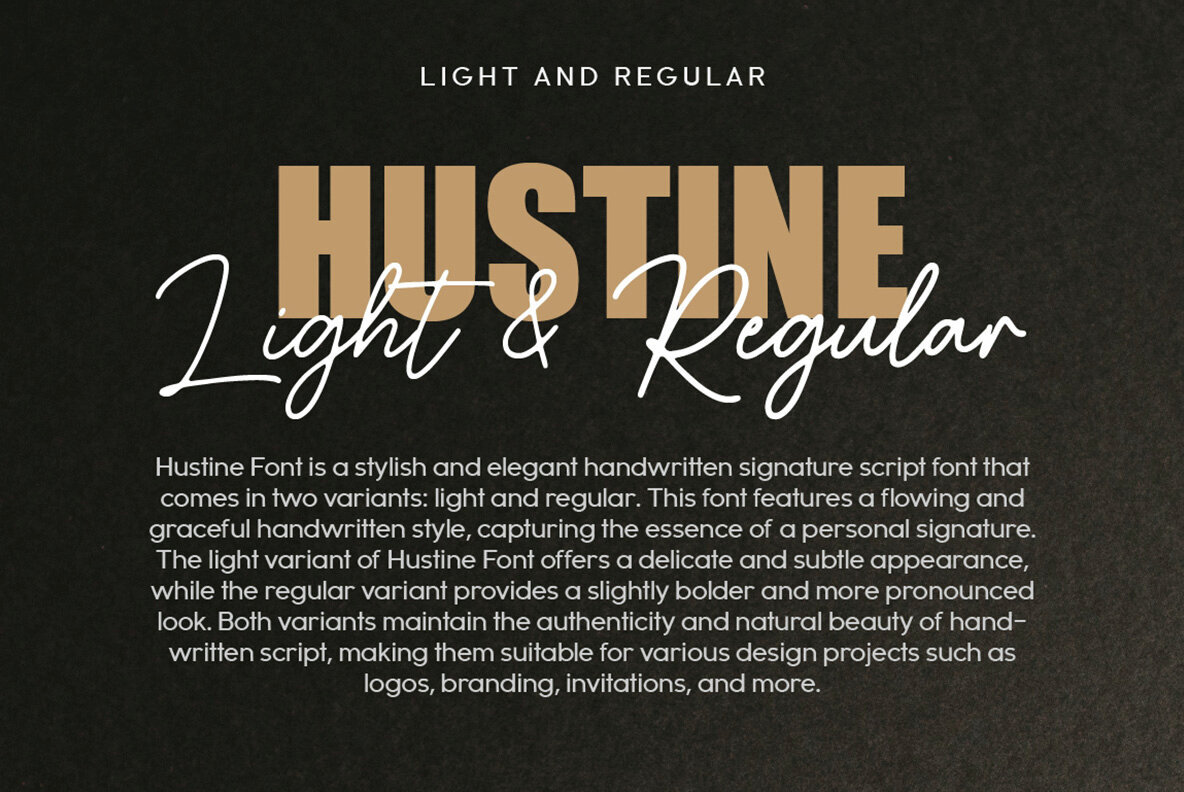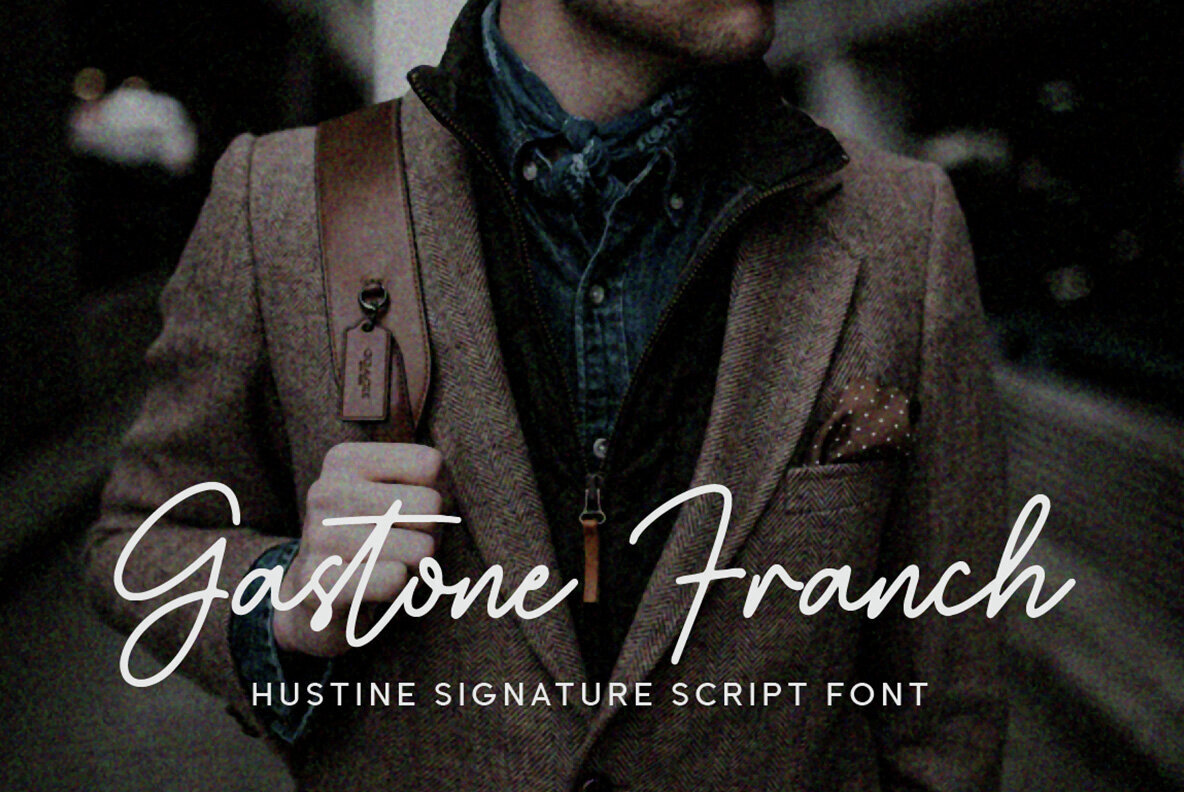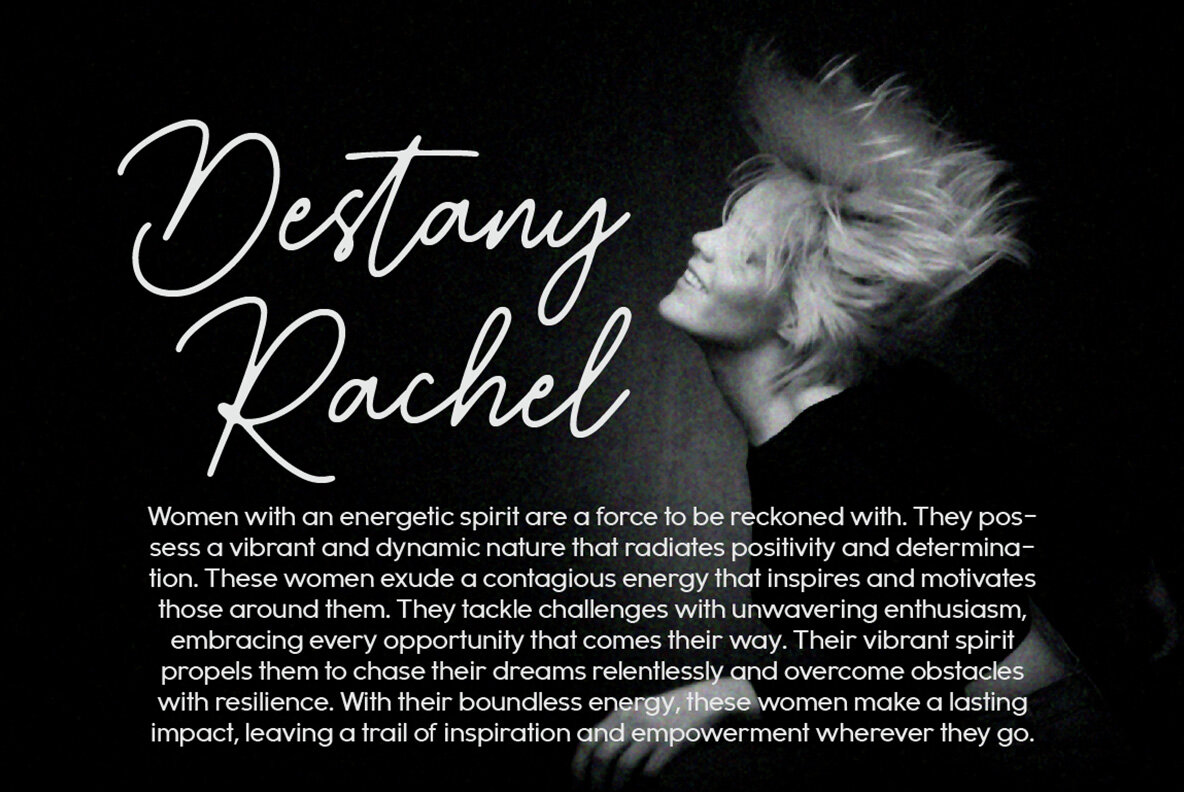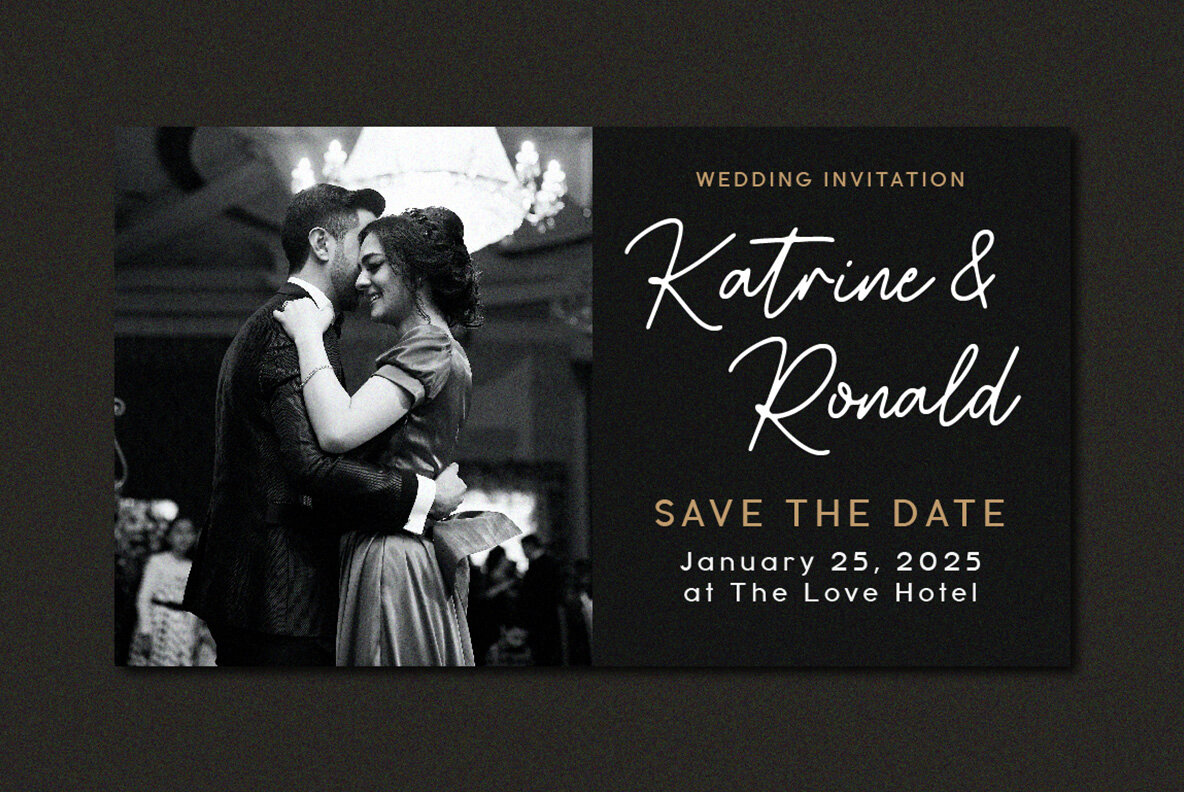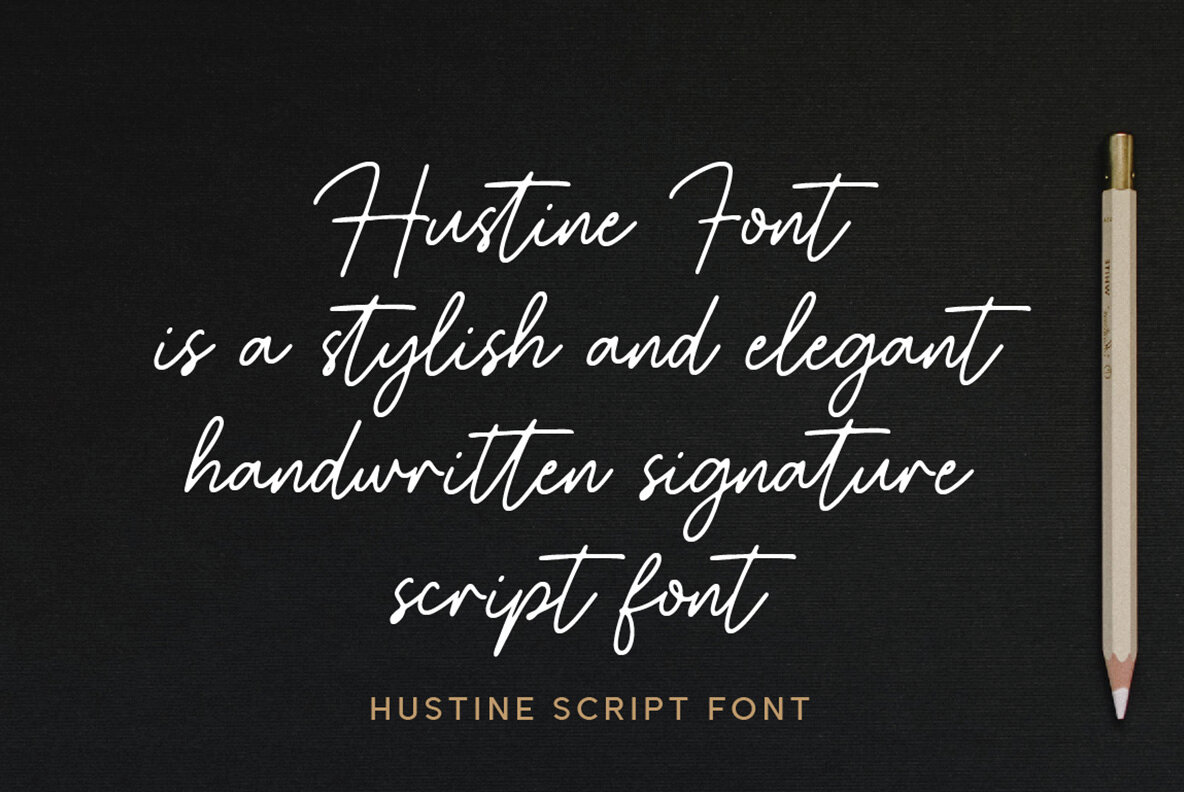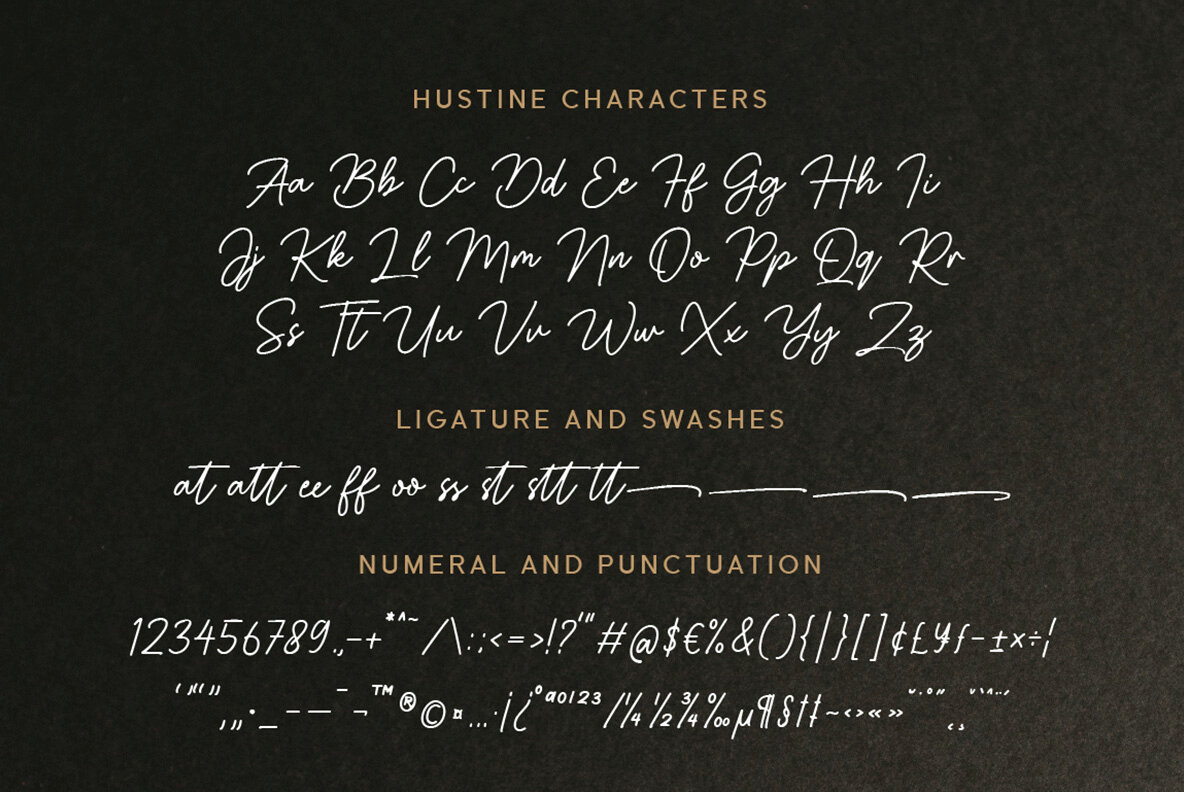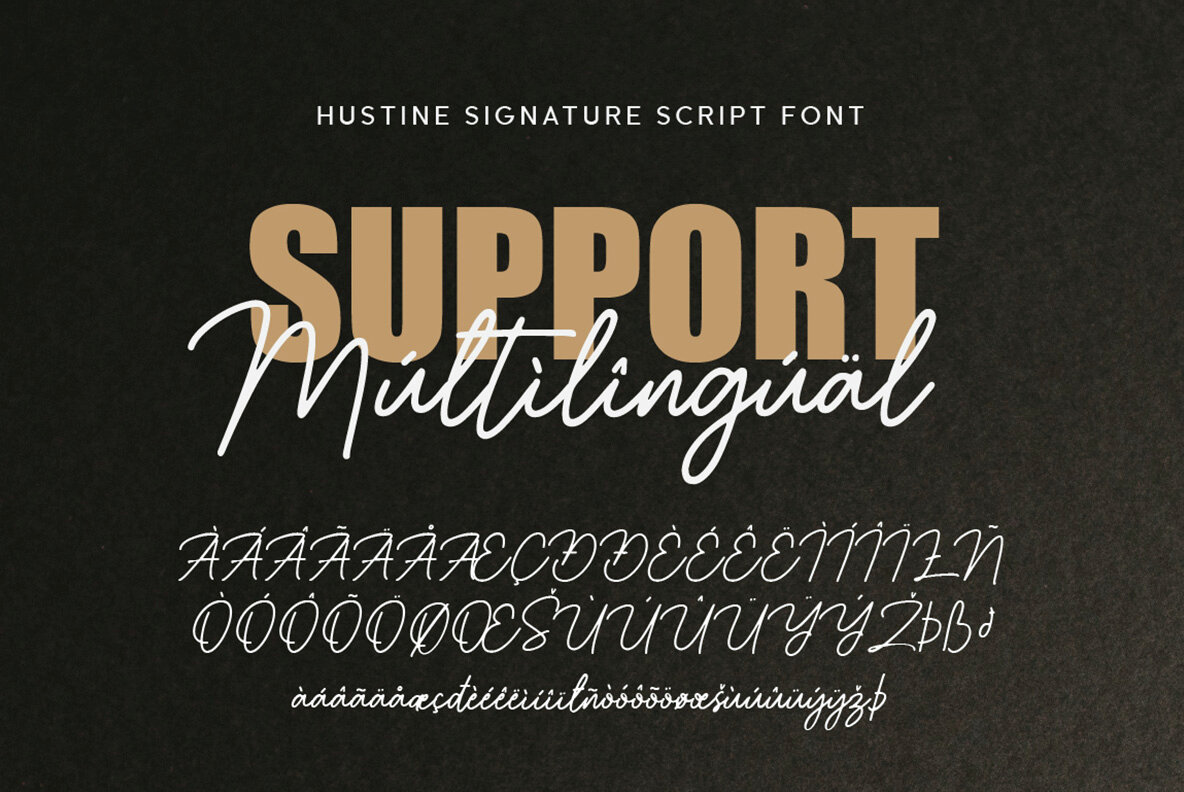
Hustine Font
Hustine Font is a sophisticated and elegant handwritten signature script available in two variants: light and regular. This font embodies a flowing and graceful style that captures the personal touch of a handwritten signature. It gracefully preserves the natural beauty of handwriting, making it ideal for a range of design projects, including logos, branding, and invitations.Hustine: Elegant Handwritten Signature Script
Features and Variants